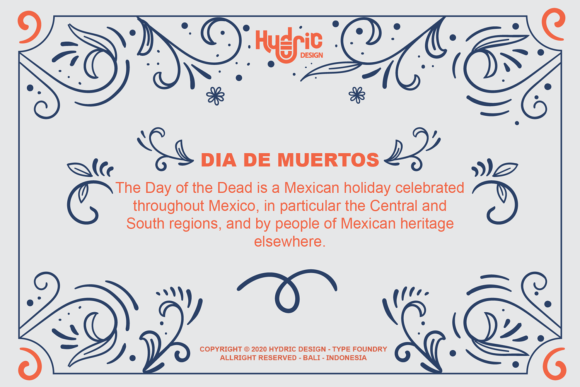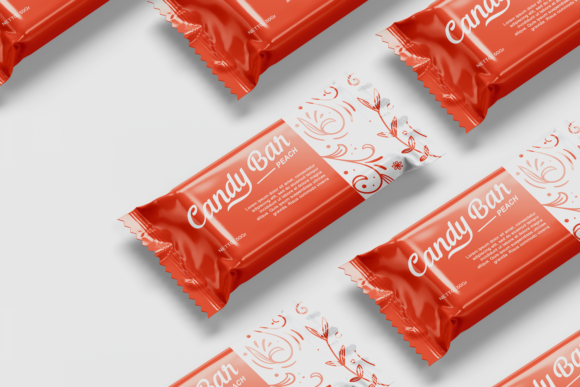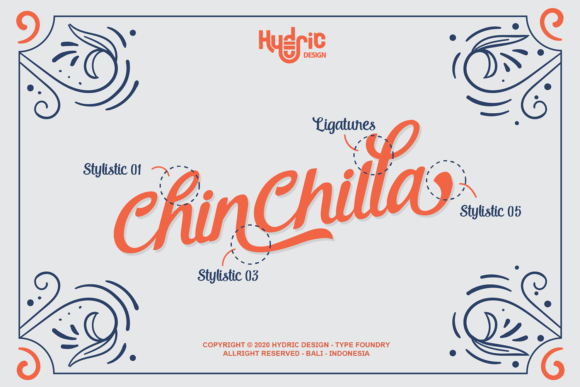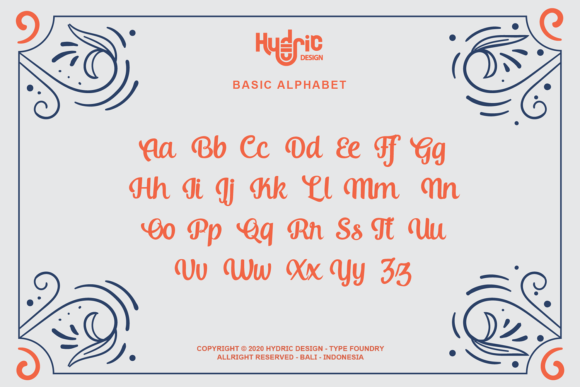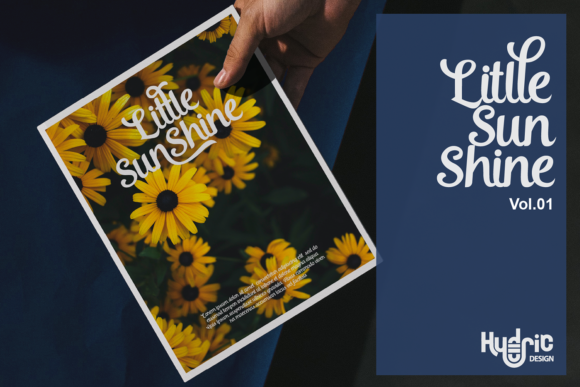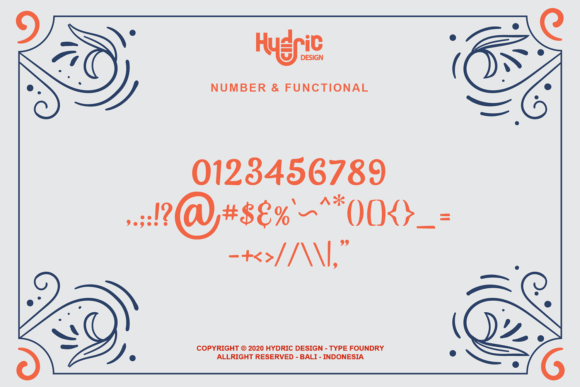
The Perfect Brushstroke: Unveiling the Chincilla Font
Have you ever been working on a design project and suddenly, you see a vision of a handwritten font that perfectly captures the essence of your idea? That’s exactly what happened to many designers when they stumbled upon the Chincilla Font. Its playful and charming aesthetic has made it a go-to choice for creatives looking to add a personal touch to their work.
The Chincilla Font is a delightful handwritten font that’s perfect for titles, logos, product posters, websites, menu books, books, and more. Its versatility and whimsical feel make it an invaluable asset for designers who want to stand out from the crowd.
With the Chincilla Font, designers can add a touch of warmth and personality to their designs, making it a valuable addition to any creative’s toolkit. Whether you’re working on a branding project or a personal art piece, this font is sure to bring a smile to your face and a spark to your imagination.
Chinchilla Font Key Features
- Font Family: Chinchilla Font comes in a range of weights from Thin to Black, with a total of 12 styles.
- Unique Characteristics: Chinchilla Font features a unique blend of modern and vintage elements, with subtle texture and organic feel, making it perfect for creative and design-focused projects.
Chinchilla Font Review
Overall, I think the Chinchilla Font is a decent addition to any designer’s toolkit. ✨ It’s a fun, cursive script font that can add a touch of whimsy to your designs. The flowing lines and playful feel make it perfect for creating eye-catching headings or titles.
One of the things I like about Chinchilla is its versatility. ✨ It comes in a range of weights and styles, making it easy to use in a variety of contexts. From formal to informal, Chinchilla can adapt to any design brief.
- Fun, cursive script style
- Available in multiple weights and styles
- Perfect for headings and titles
- Adaptable for formal and informal designs
- ⚠️ Limited legibility at smaller font sizes
- ⚠️ May not be suitable for large blocks of text
- ⚠️ Can be overused, losing its impact
Overall, I’d say the Chinchilla Font is a solid choice for designers looking to add some flair to their work. While it may have some limitations, its unique style and versatility make it a great addition to any toolkit.
Getting the Most Out of Chinchilla Font
For optimal results, use Chinchilla Font in combination with a light-colored background to create a visually appealing contrast. Experiment with different font sizes and styles to create emphasis and hierarchy in your design.
Chinchilla Font is ideal for use in branding, packaging design, and editorial content. Its playful and modern feel makes it perfect for creating eye-catching headings and titles.
What is the recommended font size for optimal readability with Chinchilla Font?
The recommended font size for optimal readability with Chinchilla Font is between 12 and 14 points. This size range provides a good balance between legibility and aesthetics. However, you can experiment with different font sizes to find the best fit for your specific design project.